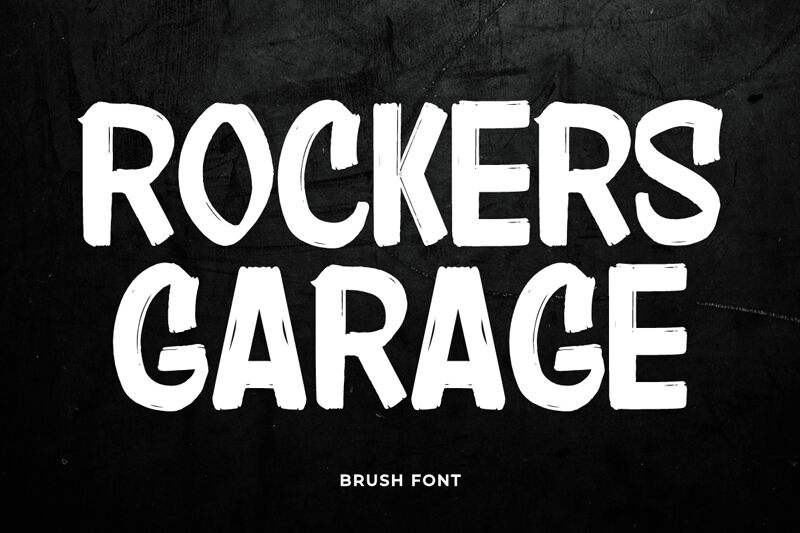
Rockers Garage, a captivating brush-style font crafted by the talented Fikryal studio, exudes a distinct sense of edgy dynamism and unbridled energy. With its bold, commanding strokes and a touch of grittiness, this font effortlessly captures the essence of a rugged, garage-inspired aesthetic. The irregular, hand-drawn lines and the subtle imperfections imbue the design with a raw, authentic charm, evoking a spirit of individuality and rebellion.
Rockers Garage's versatility shines through its ability to seamlessly integrate into a wide range of design applications, from gritty industrial branding to bold, attention-grabbing headlines. Its strong, memorable personality makes it an ideal choice for creating a lasting impression in projects that demand a distinct, eye-catching typographic presence, such as event posters, album covers, and product packaging.